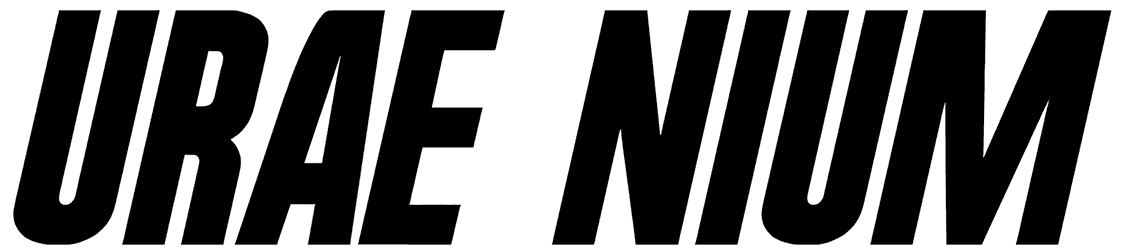
Urae Nium Font
Urae Nium’s unique and geometric character can work wonders in branding projects such as business cards, packaging, website headers, and apparel. This sans serif font, with its minimalist and serious style, can create a modern and powerful touch in your writings. This font does not include small letters, but it is very flexible and can still look impressive and pleasant in any size.